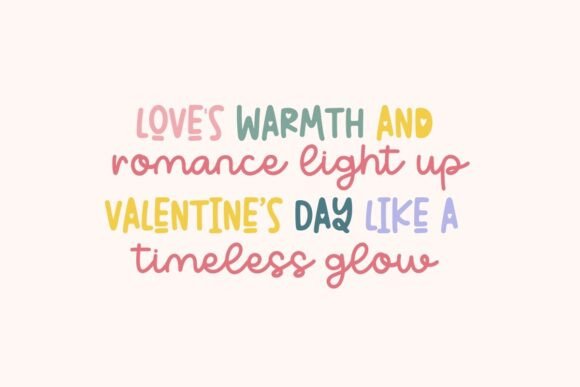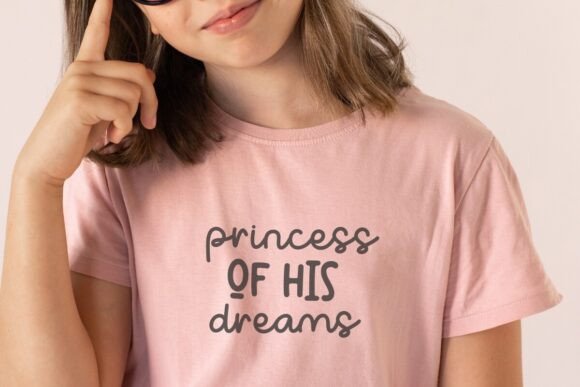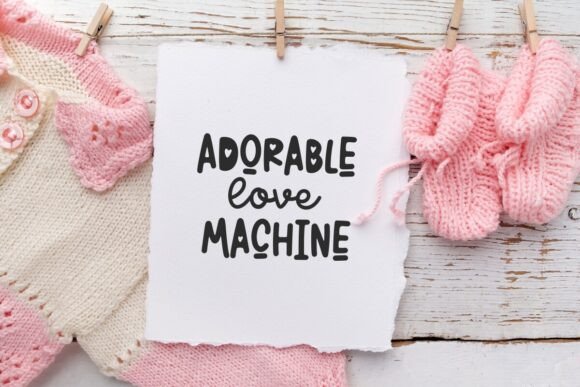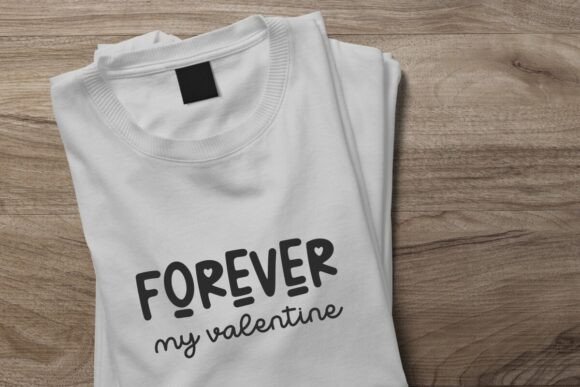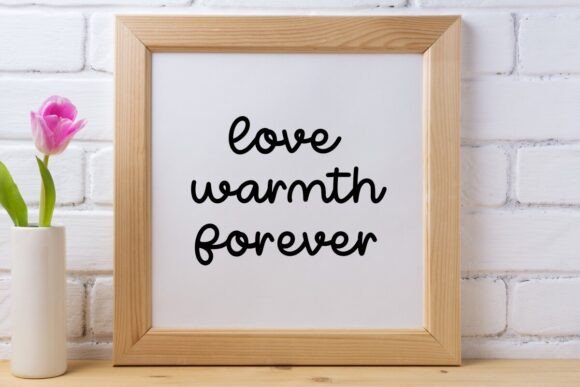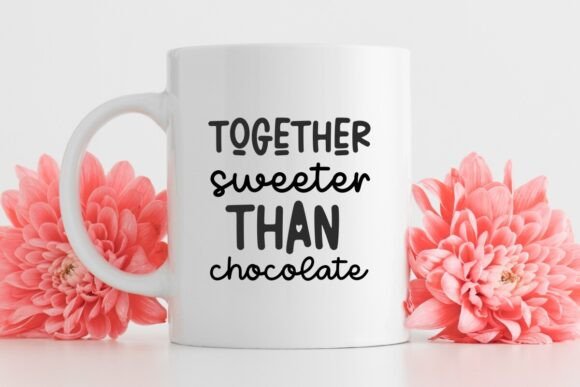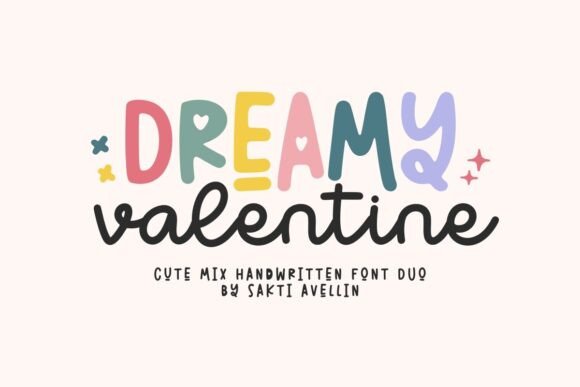
Dreamy Valentine Duo Font: Elevate Your Designs with Whimsical Charm
Are you searching for a font that can add a touch of magic to your creative projects? Look no further than the Dreamy Valentine Duo Font, a handcrafted font duo that is sure to captivate your audience with its whimsical charm. This delightful font combines display and script characters in a unique blend that is perfect for a wide range of design applications.
Dreamy Valentine is more than just a font – it’s a design companion that can help you bring your ideas to life. Whether you’re a designer, crafter, or DIY enthusiast, this font duo is an excellent addition to your toolkit. Its versatility makes it suitable for various projects, from custom apparel and accessories to home decor and stationery.
So, what can you create with Dreamy Valentine? The possibilities are endless! Here are some ideas to get you started:
- Custom T-Shirts: Add a touch of personality to your tees with Dreamy Valentine’s playful characters. Perfect for quotes, phrases, or names, this font is sure to make your designs stand out.
- Mugs and Water Bottles: Give your favorite quotes or phrases a decorative boost with Dreamy Valentine’s whimsical script.
- Greeting Cards: Create heartfelt and unique greeting cards for special occasions like Valentine’s Day, weddings, or anniversaries.
- Wedding Designs: Add a romantic touch to your wedding designs, including invitations, decorations, and favors.
- Doormats: Elevate your home decor with custom doormats featuring Dreamy Valentine’s charming characters.
What Makes Dreamy Valentine Special?
Dreamy Valentine’s unique charm lies in its thoughtful design. Here are some features that make this font duo special:
- Handcrafted with Love: Each character has been carefully crafted to ensure a personal touch that’s hard to find in digital fonts.
- Display and Script Characters: The font duo combines display and script characters, offering a range of options for your designs.
- Whimsical and Playful: Dreamy Valentine’s characters are designed to add a touch of whimsy and playfulness to your designs.
- Easy to Read: Despite its playful nature, Dreamy Valentine remains easy to read, making it perfect for quotes, phrases, and short texts.
Tips for Using Dreamy Valentine
To get the most out of Dreamy Valentine, here are some tips to keep in mind:
- Experiment with Colors: Dreamy Valentine looks great in a variety of colors, so don’t be afraid to experiment and find the perfect hue for your design.
- Mix and Match: Combine display and script characters to create unique and visually appealing designs.
- Play with Sizes: Dreamy Valentine’s characters look great in various sizes, so experiment with different font sizes to add depth and interest to your designs.
Dreamy Valentine Duo Font is a versatile and charming font duo that’s perfect for designers, crafters, and DIY enthusiasts. With its whimsical charm, handcrafted design, and endless possibilities, this font is sure to become a favorite in your toolkit. So why wait? Immerse yourself in the magic of Dreamy Valentine and elevate your designs to new heights!